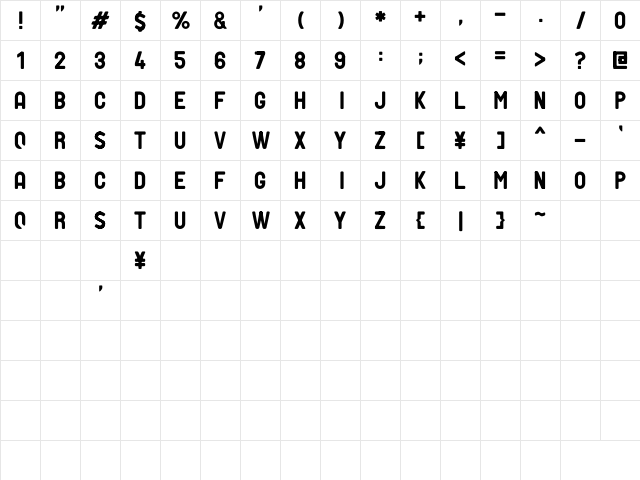
PTF NORDIC Round
Design Context for PTF NORDIC Typeface
PTF NORDIC softens its letterforms with rounded terminals, giving it an approachable, friendly quality that works well in consumer-facing and digital contexts.
A natural fit for tech startups, health and wellness brands, children's products, and friendly consumer apps.
Font Pairing: Pairs well with a rounded or humanist sans for body copy, maintaining the friendly tone without relying on PTF NORDIC to carry extended reading.
Pro Tip: Pair PTF NORDIC with a geometric sans for a balanced system — the rounded softness works as a warm counterpoint to harder-edged companions.